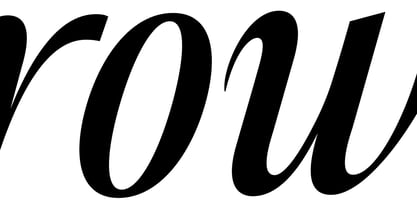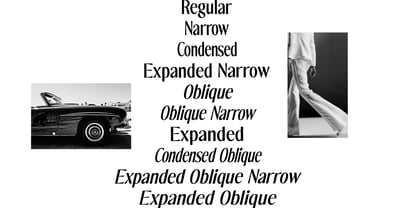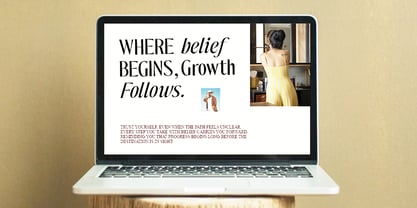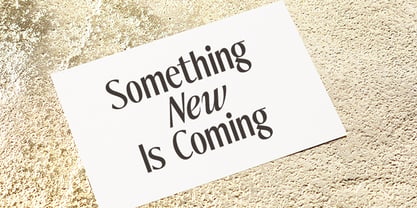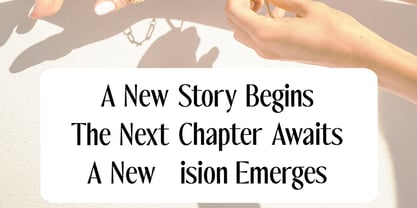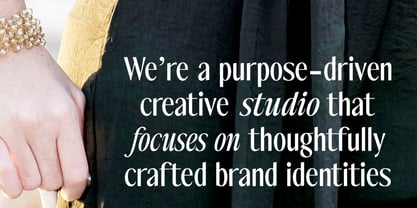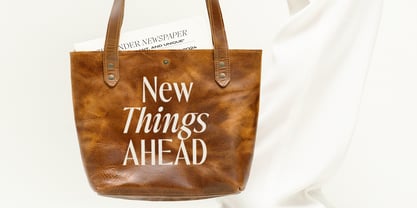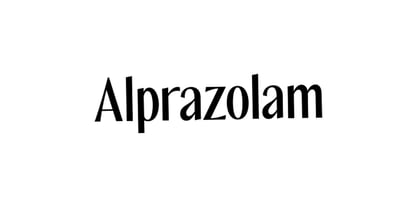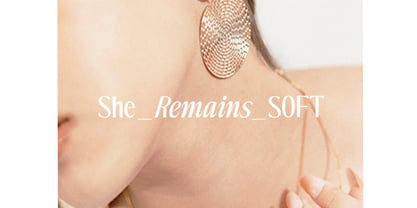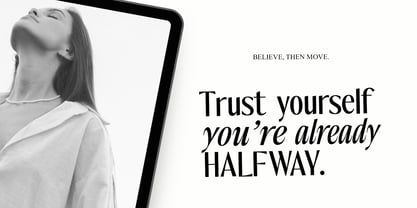
The Reading Wogue
La famille de polices The Reading Wogue a été conçue par Nur Hayati et publiée par Positive Type. The Reading Wogue contient 15 styles et options de package familial. En savoir plus sur cette famille
Reading Wogue is a refined modern serif typeface designed for high-end editorial aesthetics. Inspired by classic fashion magazines and contemporary typography, this font balances elegance, clarity, and versatility in one complete family. With its sharp contrasts, graceful curves, and confident proportions, Reading Wogue is perfect for luxury branding, magazine layouts, headlines, book covers, posters, and sophisticated visual identities. The design shines especially in editorial and fashion contexts, where style and readability must work in harmony. This font family includes 15 carefully crafted styles, offering a wide range of widths and oblique options. From condensed to expanded, regular to oblique, Reading Wogue gives designers full typographic flexibility for both bold statements and refined compositions. Whether you are designing for print or digital media, Reading Wogue delivers a timeless yet modern character that elevates any project. Font Features Elegant modern serif design Strong editorial and fashion appeal Clean readability with expressive character Perfect for headlines, magazines, branding, and luxury projects Professional kerning and spacing Works beautifully in both large and medium sizes Font Family Includes (15 Fonts) Regular Narrow Condensed Expanded Narrow Oblique Narrow Condensed Oblique Expanded Oblique Narrow Italic Italic Narrow Condensed Italic Expanded Italic Narrow Ideal For Editorial design, fashion magazines, branding, logos, luxury packaging, posters, book covers, advertising, and high-end visual projects.